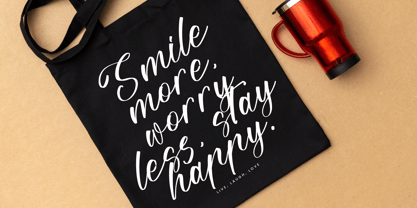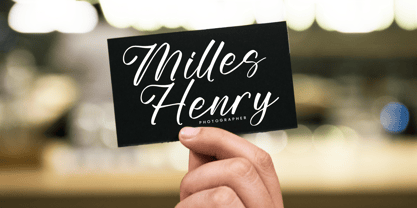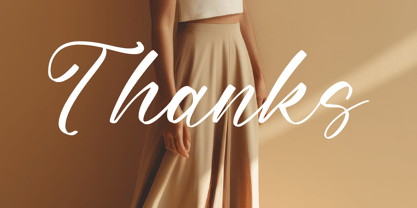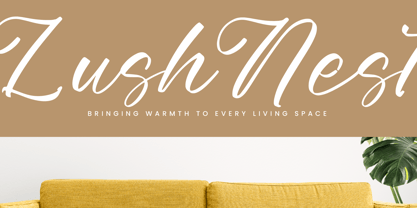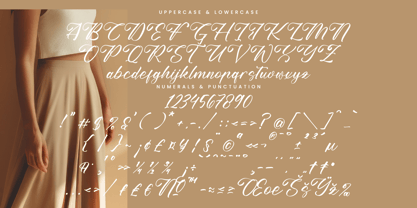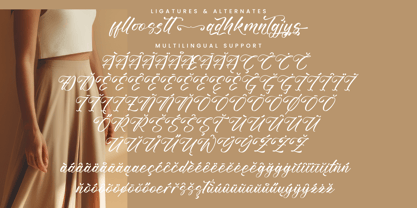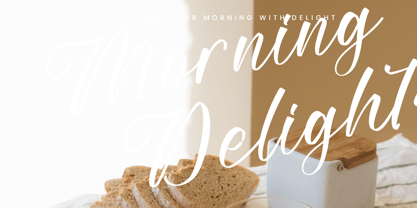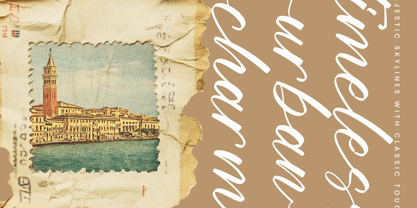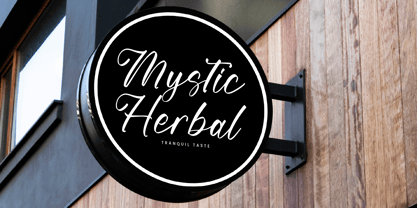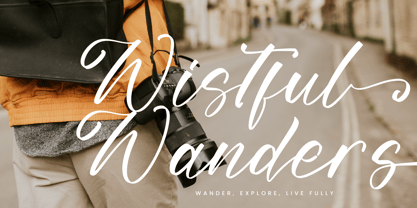
Brighton Chanels
by Integritype
The Brighton Chanels Font Family was designed by Dimas Alif Maulana and published by Integritype. Brighton Chanels contains 2 styles and family package options. More about this family
Brighton Chanels - Elegant Handwritten Script Font, from Integritype Studio, perfect for any project like: logos, branding projects, homewares designs, product packaging, mugs, quotes, posters, shopping bags, t-shirts, covers books, business cards, invitation cards, greeting cards, labels, photography, watermarks, special events and all your other luxury projects that require a premium taste.